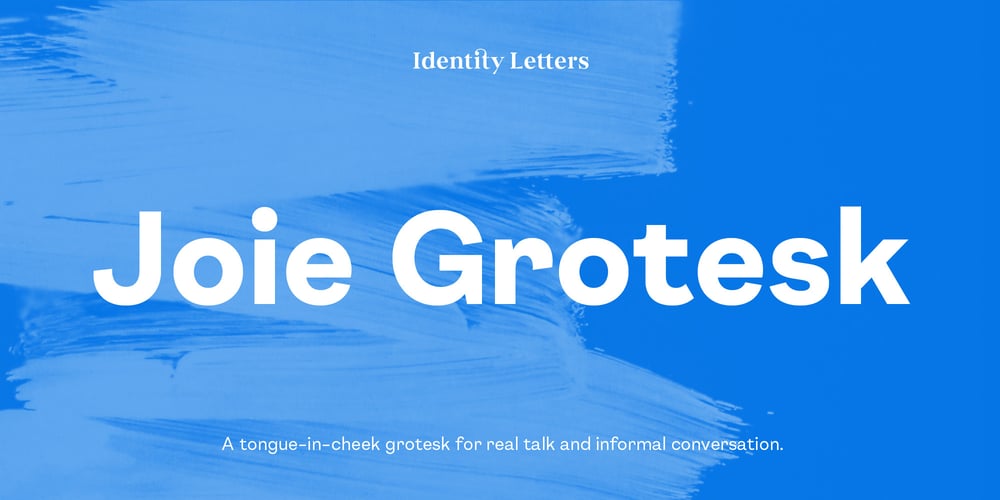
Joie Grotesk
Joie Grotesk font
Joie Grotesk Font Family was designed by Moritz Kleinsorge and published by Identity Letters. Joie Grotesk contains 18 styles and family package options. Joie Grotesk is a typeface for everyone: a sans for your family, friends, and clients alike.A clean overall design, it borrows somewhat from early 19th century grotesques, adding warmth to a regular and balanced rhythm. You can fine-tune its flavor with over a dozen Stylistic Sets—for a confident and optimistic voice that suits your requirements.Nine weights (each with matching italics), 750+ glyphs, and rich Open Type features like circled and boxed numbers and arrows make it a reliable companion for any project.Use Joie Grotesk when you need a classic sans-serif typeface with a modern and individual twist. It’s the friendly face for your company or campaign, publication or packaging.